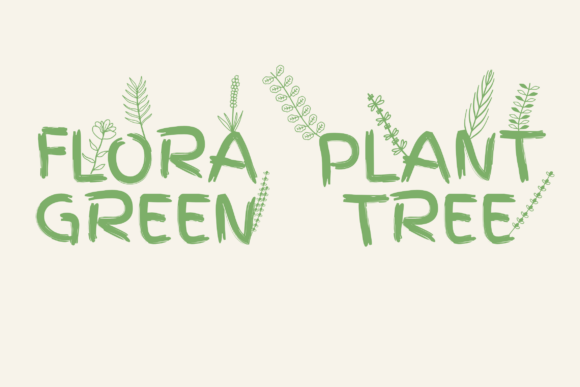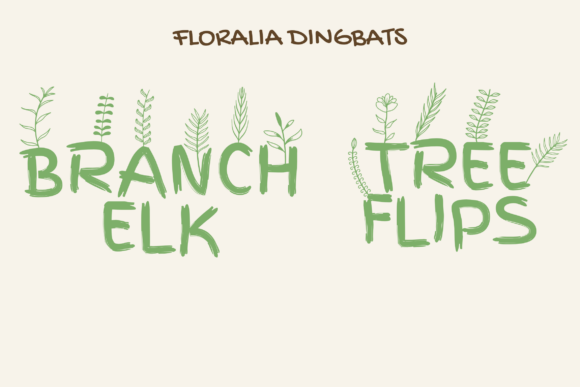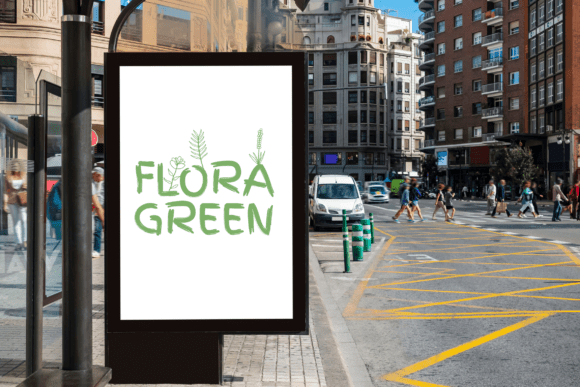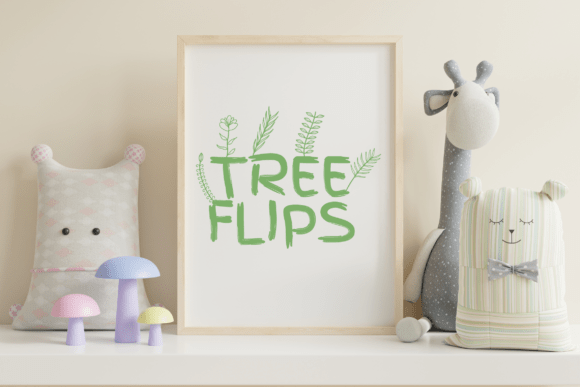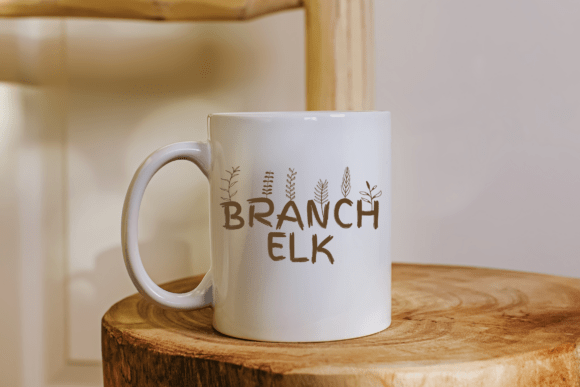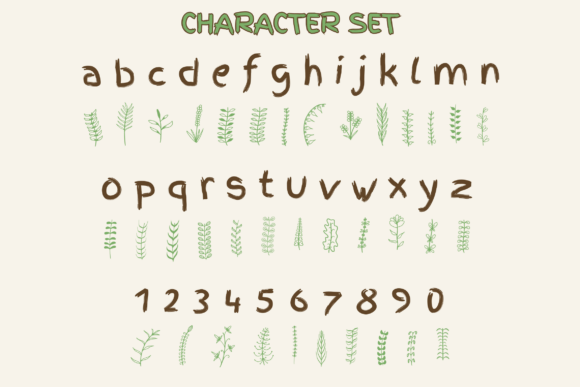
Introduction to Floralia Dingbat Font
Floralia Dingbat – Elegant Floral Dingbat Font for Branding & Crafts Floralia Dingbat is a beautifully crafted floral dingbat font featuring hand-drawn botanical illustrations turned into easy-to-use font characters.
This collection of elegant symbols includes wreaths, leafy corners, decorative borders, nature-inspired motifs, and flourishes that are perfect for creatives, designers, and crafters alike With a soft, organic touch and delicate design style, Floralia is ideal for anyone who wants to infuse a natural, romantic, or vintage aesthetic into their projects.
Key Features of Floralia Dingbat Font
Why Choose Floralia Dingbat Font?
Floralia Dingbat Font offers exceptional quality and versatility, making it a valuable addition to your design toolkit. Whether you’re creating for personal projects or commercial use, Floralia Dingbat Font delivers professional results.